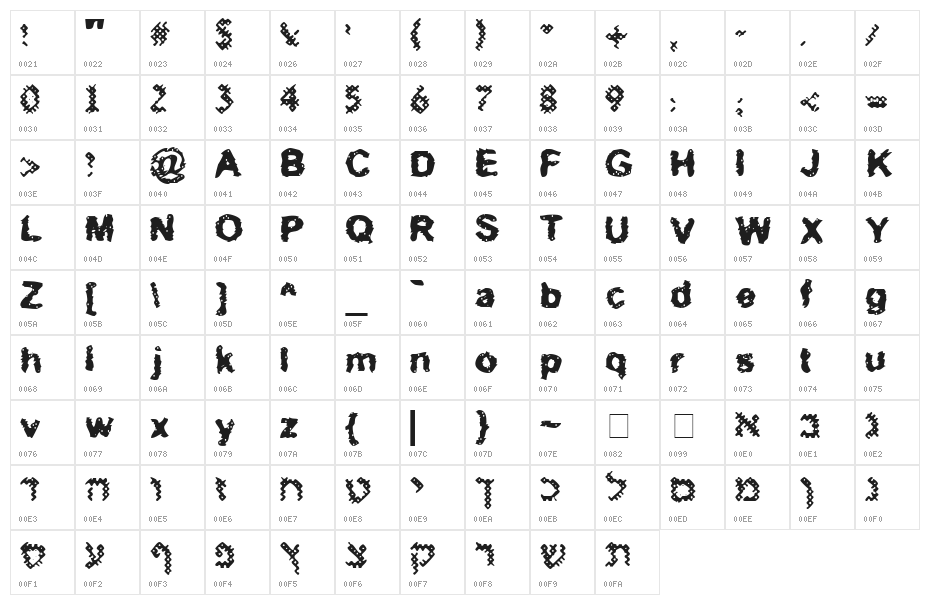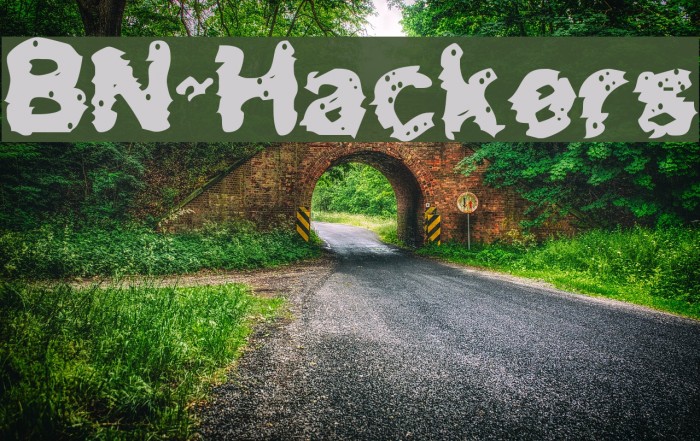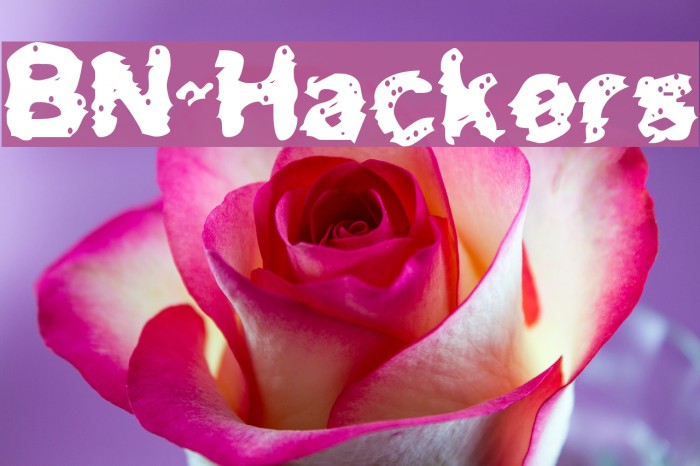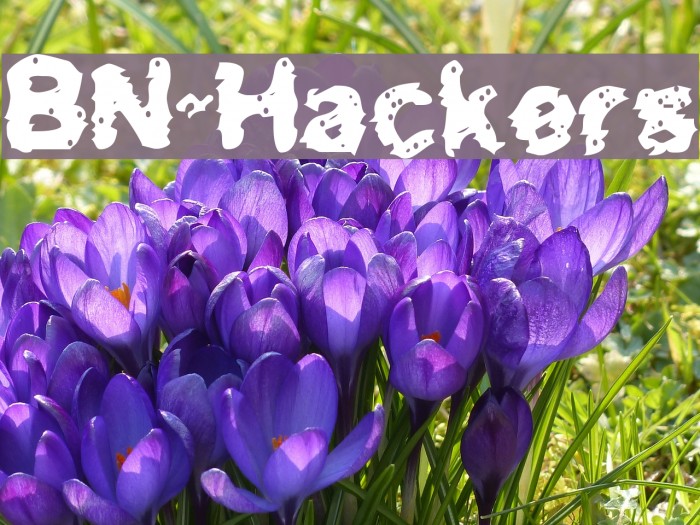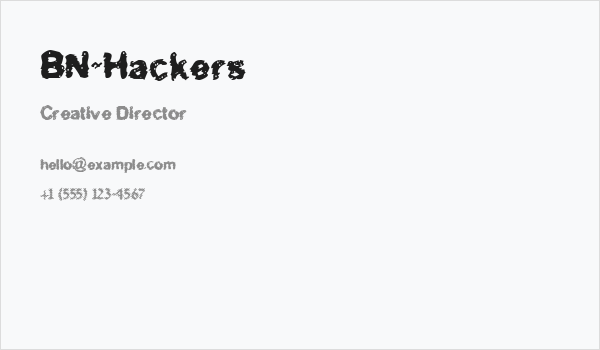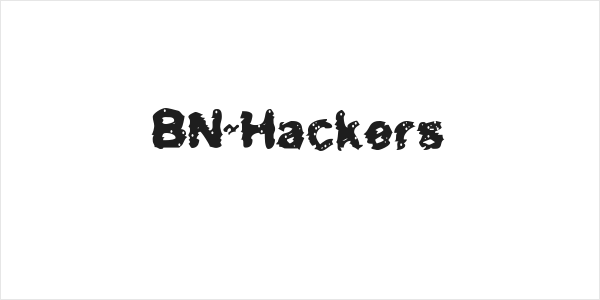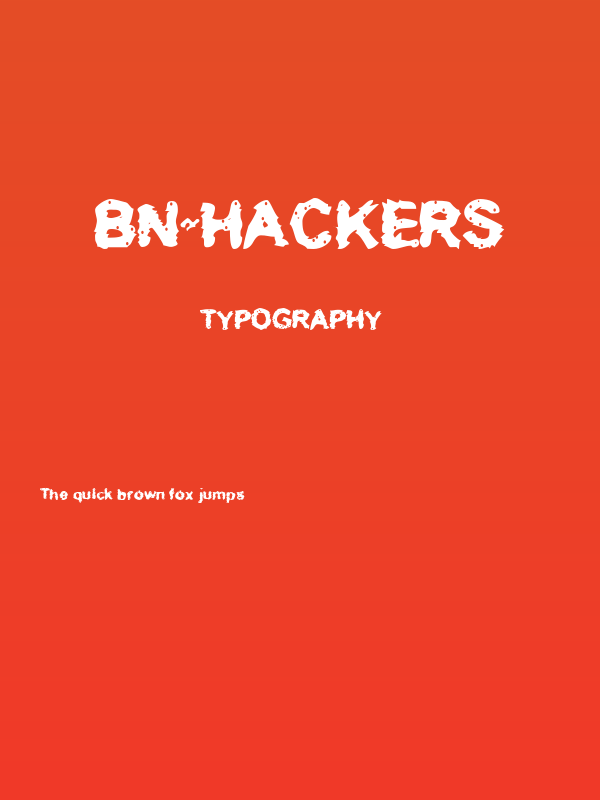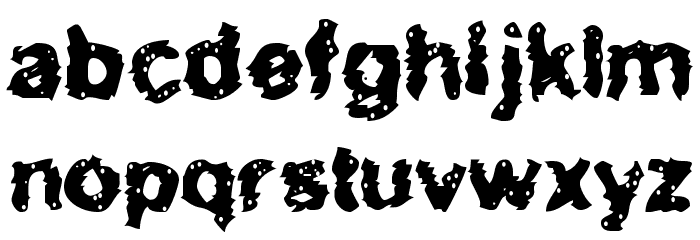
BN-Hackers Font
BN-Hackers Description
This font features a highly decorative and chaotic style, reminiscent of a digital glitch or a distressed, eroded texture. The characters are bold and irregular, with jagged edges and varying thicknesses that create a sense of movement and energy. The uppercase and lowercase letters maintain a consistent style, with the same distressed elements applied throughout. Numbers and special characters follow the same design principles, ensuring a cohesive look across all glyphs. This font is ideal for projects that require a bold, eye-catching display with a modern, edgy twist.
| Overall Style | Modern, Edgy |
| Proposed Projects | Ideal for use in digital art, video game design, edgy branding, posters, and album covers. |